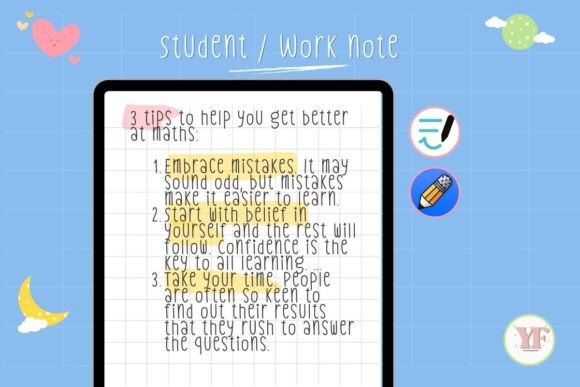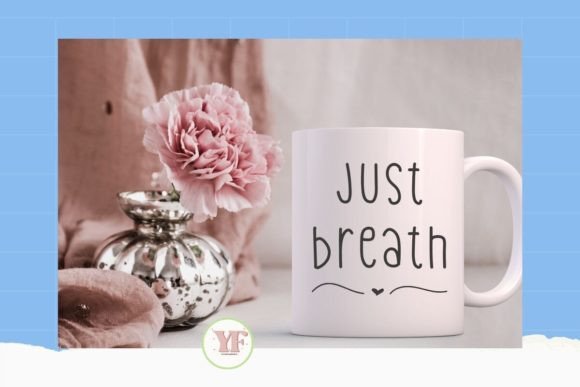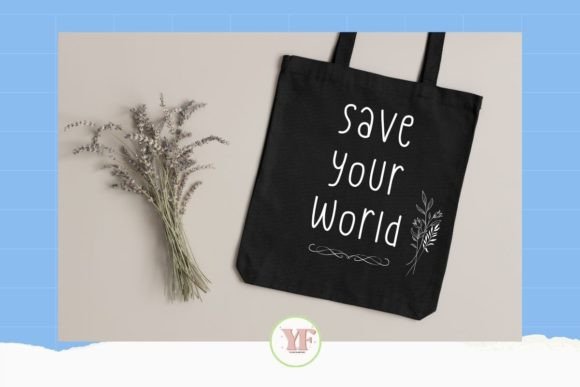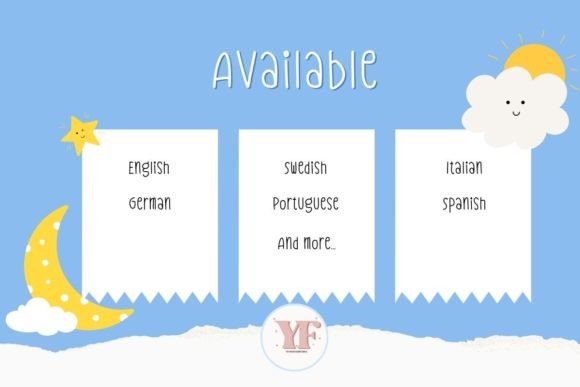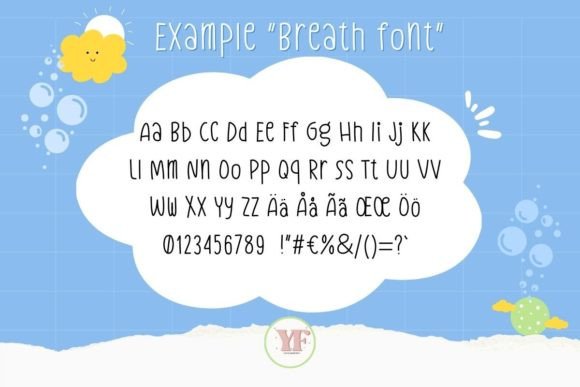
Discover the Delightful Charm of “Breath” Font: Elevate Your Written Communication with a Touch of Whimsy
In the realm of typography, few fonts manage to capture the essence of handwritten charm as effortlessly as the “Breath” font. This delicate, pen-line font exudes a sense of spontaneity and authenticity, making it an ideal choice for anyone looking to add a touch of personality to their written communication. Whether you’re a student jotting down lecture notes or a professional composing important work memos, “Breath” font is sure to bring a delightful and unique flair to your text.
The Essence of Handwritten Charm
At its core, the “Breath” font is a masterful representation of handwritten charm. Its thin, cute lines and free-spirited style evoke a sense of creativity and playfulness, making it perfect for those who want to add a touch of whimsy to their written communication. The font’s fluidity is reminiscent of free-hand writing, giving it an authentic and spontaneous feel that’s hard to replicate with more traditional fonts.
Perfect for Student Notes and Work Documents
One of the standout features of the “Breath” font is its versatility. It’s equally at home in student notes and work documents, making it an excellent choice for anyone looking to add some personality to their written communication. For students, the font’s playful and elegant vibe makes it perfect for jotting down lecture notes, creating study guides, or even writing essays. Meanwhile, professionals can use it to add a touch of creativity to work memos, reports, and presentations.
Adding a Touch of Creativity to Your Text
The “Breath” font’s whimsical strokes are designed to add a touch of creativity to any text. Its playful lines and delicate curves infuse written communication with a sense of elegance and sophistication, making it perfect for those who want to stand out from the crowd. Whether you’re looking to create eye-catching headings, add some personality to your body text, or simply want to try something new, the “Breath” font is an excellent choice.
Why Designers and Crafters Love “Breath” Font
For designers and crafters, the “Breath” font is a treasure trove of creative possibilities. Its unique blend of playfulness and elegance makes it perfect for a wide range of design projects, from branding and packaging to stationery and digital media. The font’s versatility and charm also make it an excellent choice for crafters who want to add a personal touch to their handmade projects, such as journals, cards, and gift tags.
Tips for Using “Breath” Font Effectively
To get the most out of the “Breath” font, here are a few tips to keep in mind:
- Use it for headings and titles to add a touch of creativity and personality to your text.
- Pair it with other fonts to create a unique and eye-catching typography combination.
- Experiment with different colors and textures to add depth and visual interest to your design.
- Don’t be afraid to mix and match different font sizes and styles to create a visually appealing hierarchy.
In conclusion, the “Breath” font is a delightful and unique addition to any design project or written communication. Its handwritten charm, whimsical strokes, and playful elegance make it perfect for students, professionals, designers, and crafters alike. Whether you’re looking to add some personality to your written communication or simply want to try something new, the “Breath” font is an excellent choice. So why not give it a try and see how it can elevate your design and written communication to the next level?